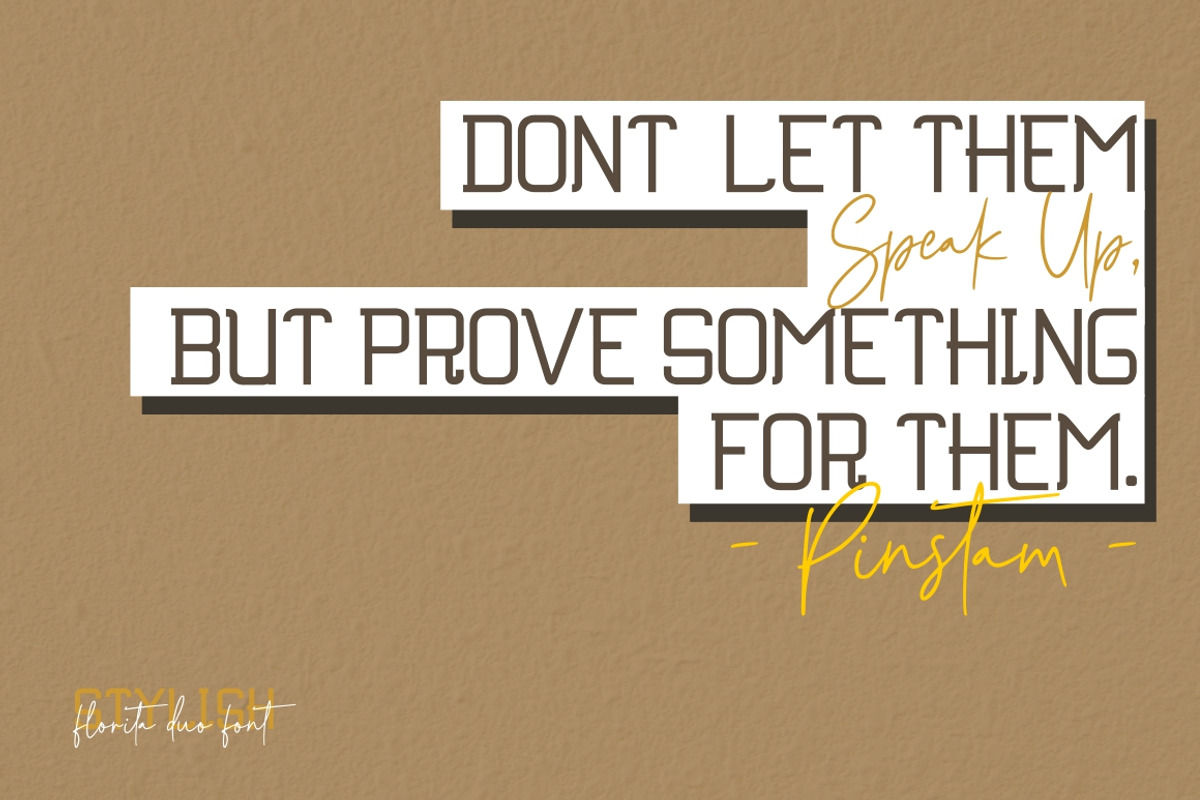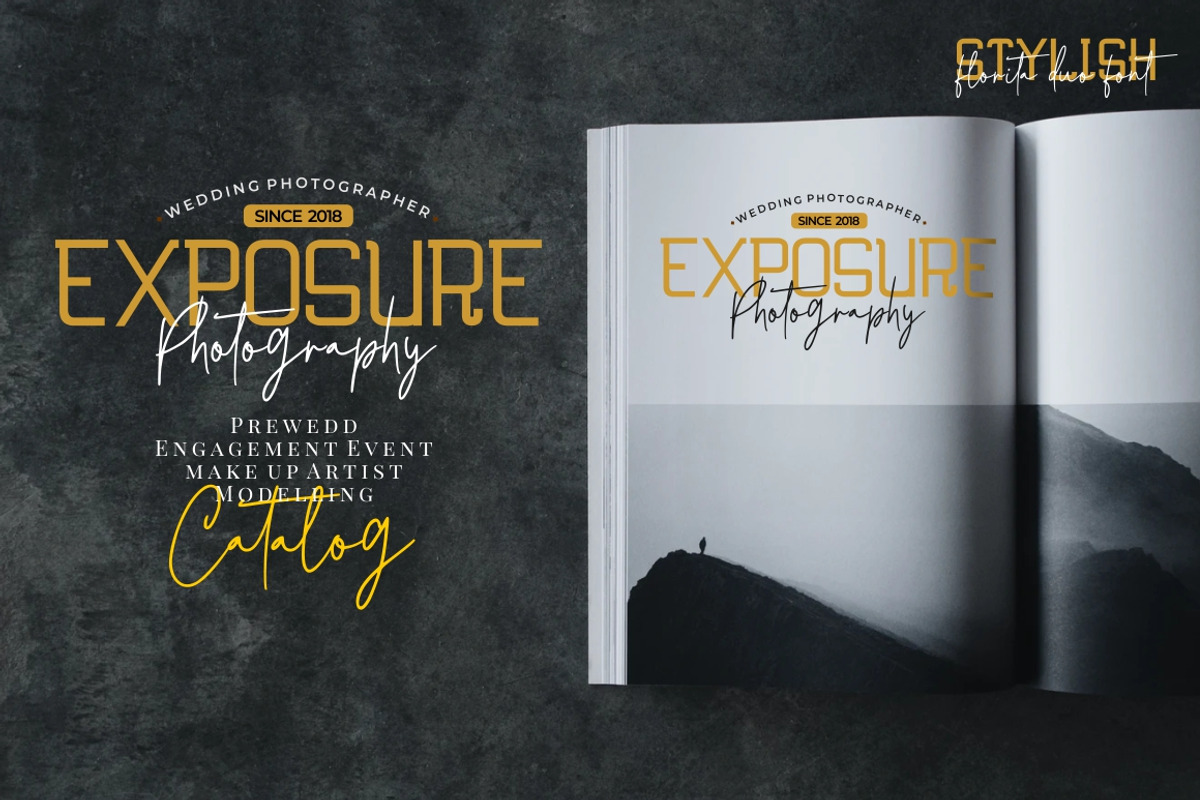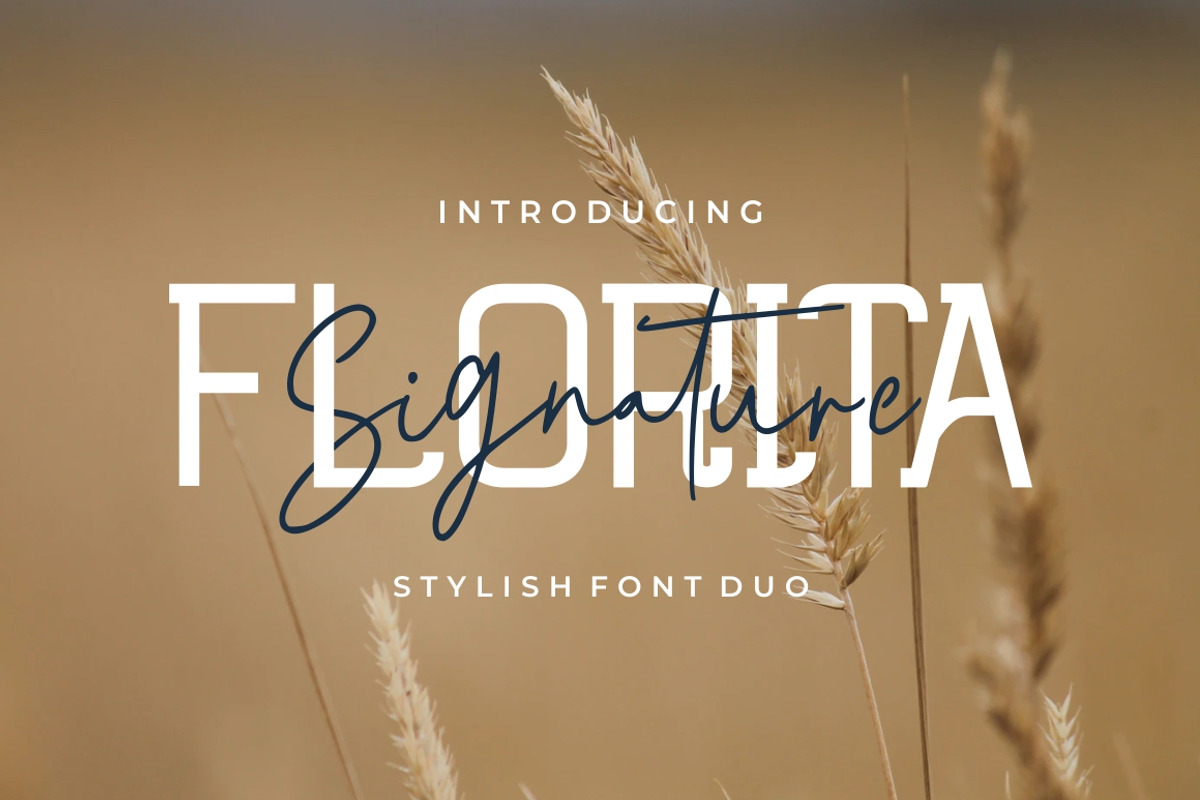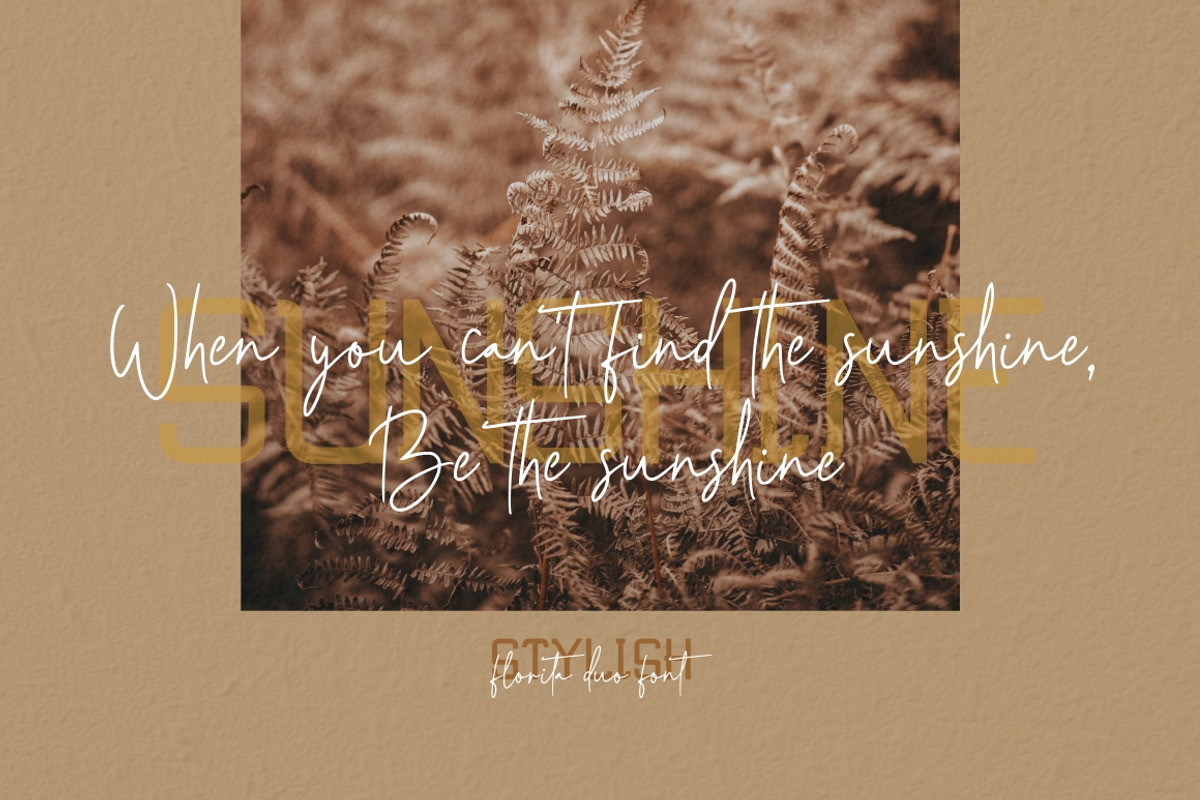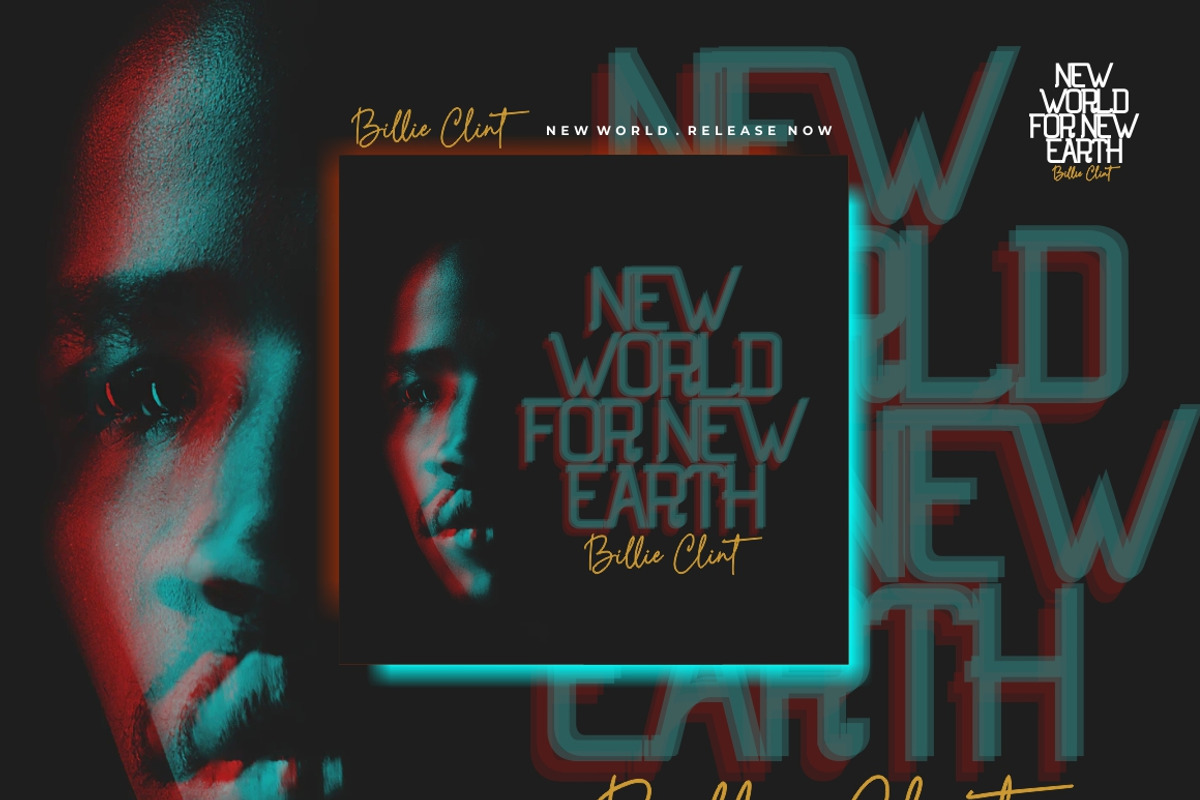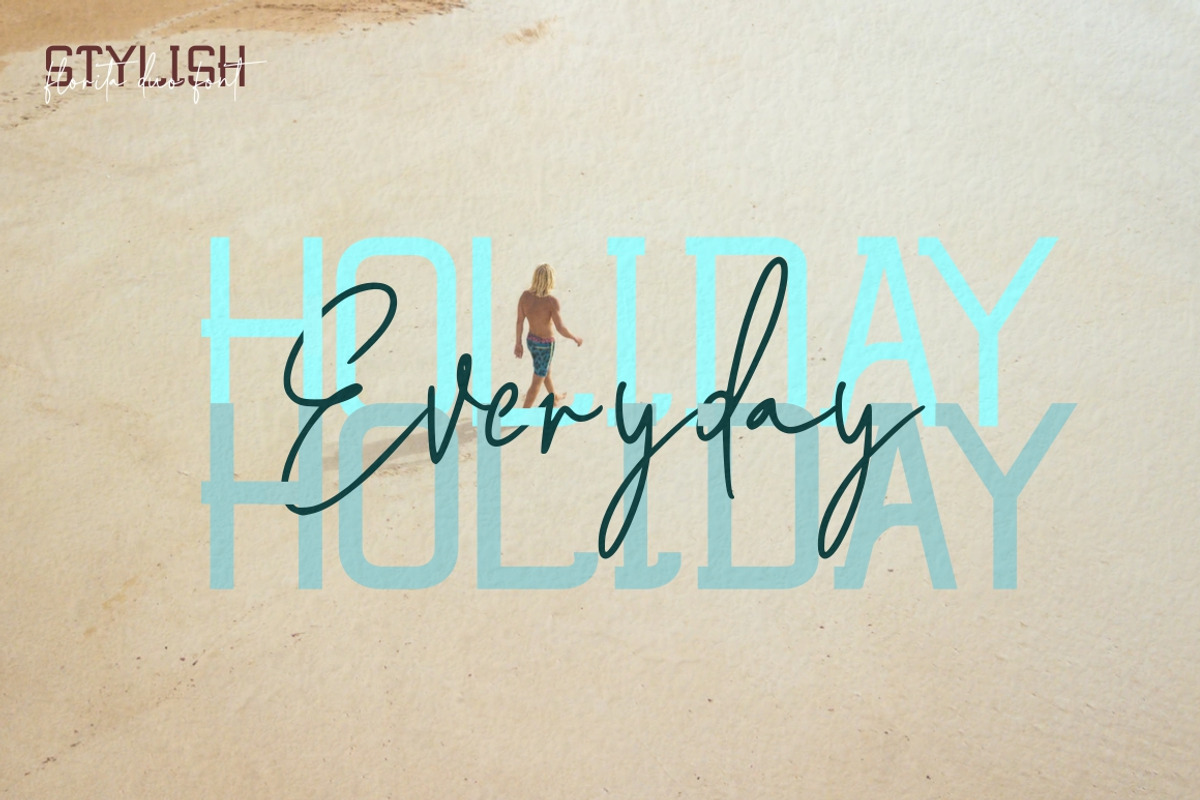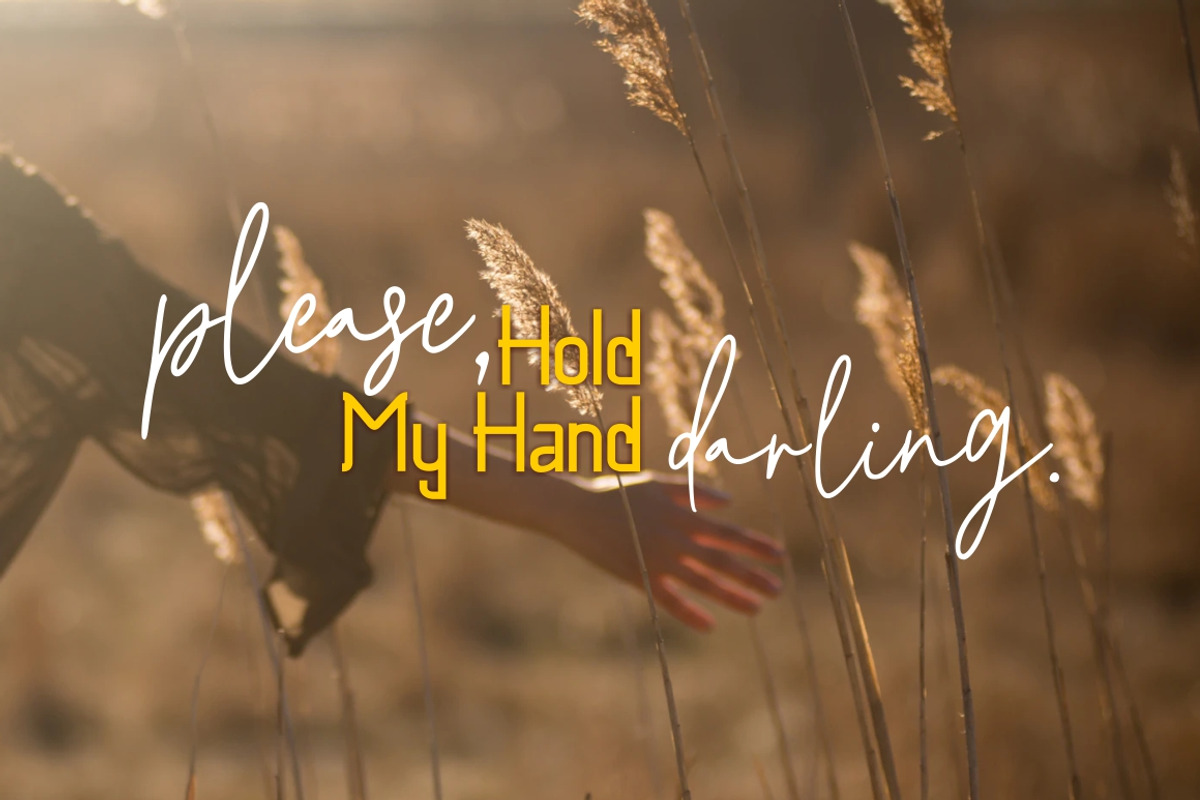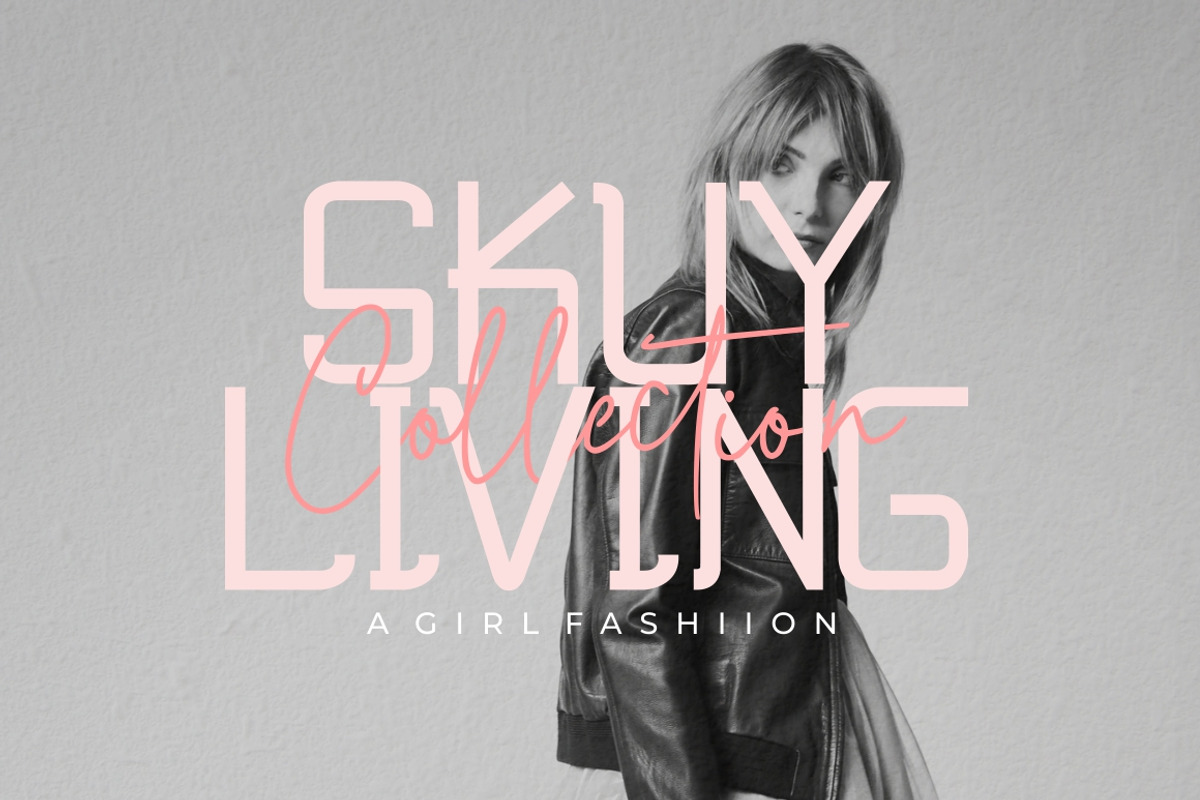
Florita Font Duo
Florita is a beautiful modern sans serif and signature typeface. a perfect pair, can created to mix together. Florita is perfectly suited to signature, wedding, social media, stationery, logo, typography quotes, magazine or book cover, website header, clothing, branding, packaging design and more.
Florita Signature is a natural handwriting signature style font. Contains upper & lowercase characters, numerals, alternate and punctuation. Florita Sans is a modern and unique sans serif font. Contains upper & lowercase characters, numerals and punctuation. This font is also support multi language.